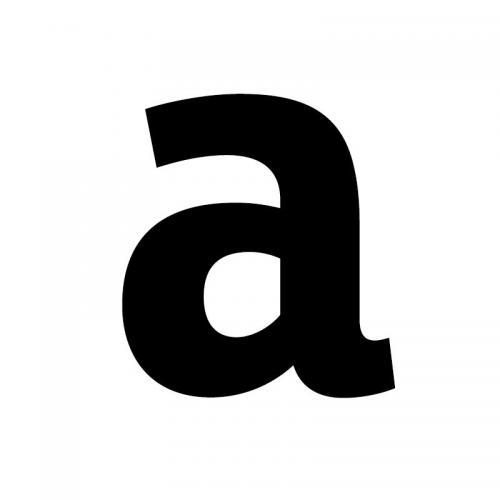
A font with a stroke weight bigger than what would be considered “normal” or “regular”.
Dutch: vet
German: fett
Italian: grassetto, neretto
Norwegian: Halvfet
Polish: grube
Russian: полужирный
Spanish: negrita
Turkish: Kalın